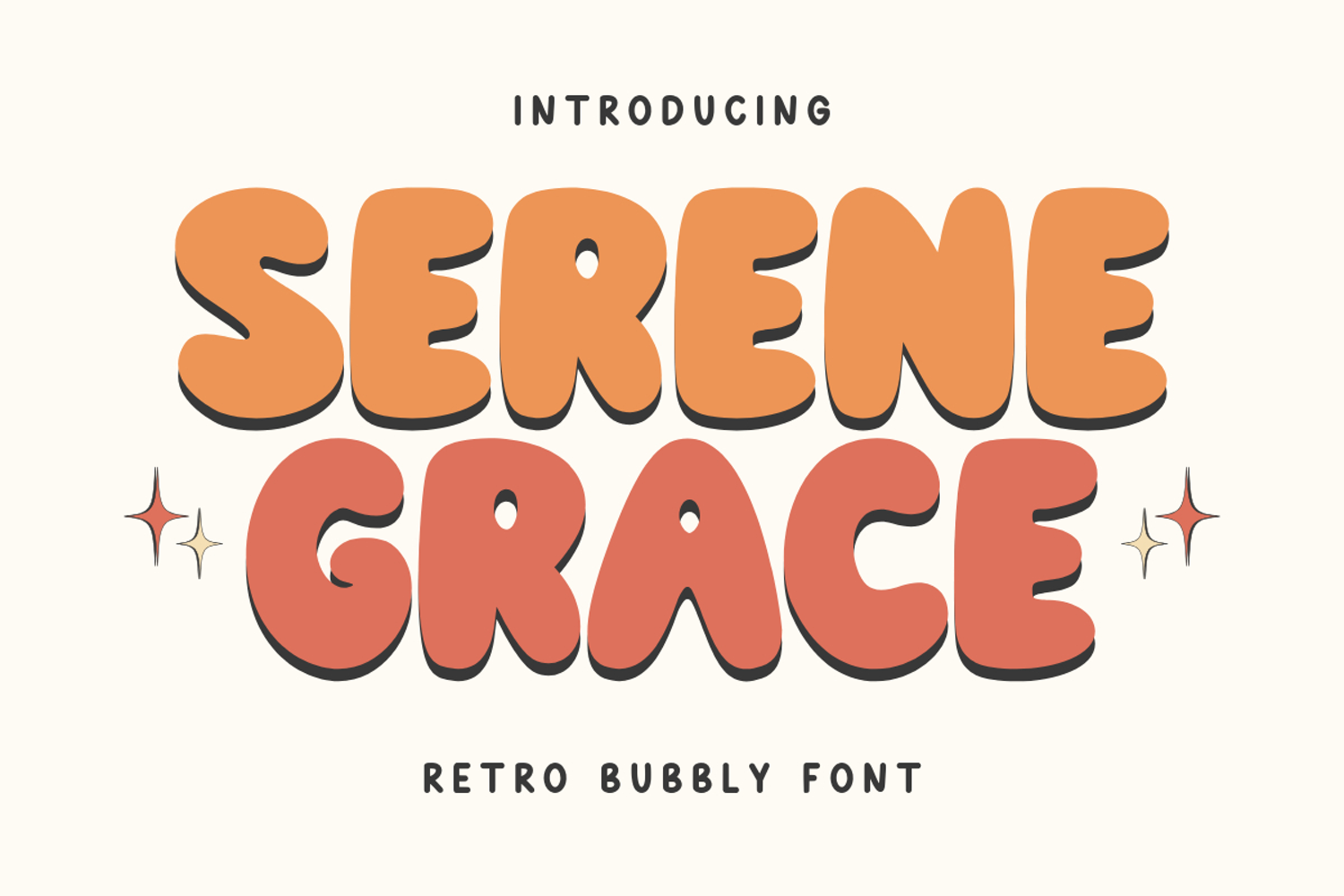
Serene Grace - Pretty Bubblen Font
Serene Grace is a cute pretty bubble retro font. This font is perfect for cricut projects, logos, shirts, svg files, planners, stickers, quotes, social media and more!